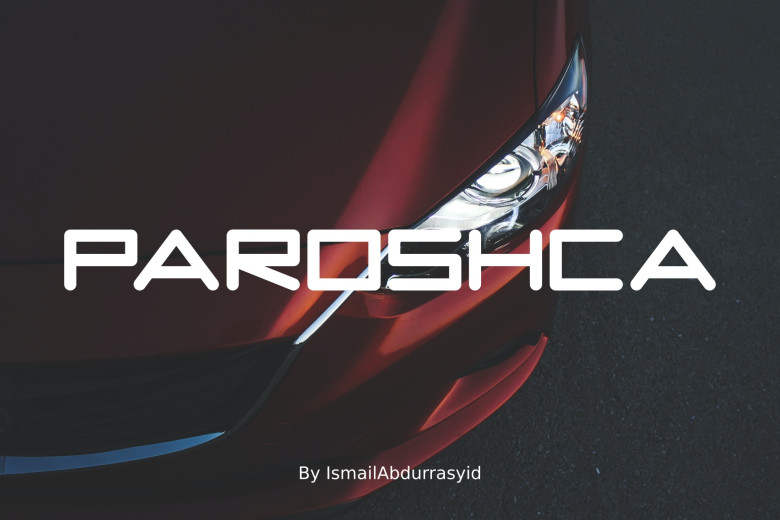
Paroshca Font
Paroshca – futuristic and modern display typeface. English language plus built-in full multilingualism and general punctuation often used. Ideal for designing logos, books, covers, magazines, etc. Be immediately thrilled by beautiful design by Paroshca.
Paroshca Display Font